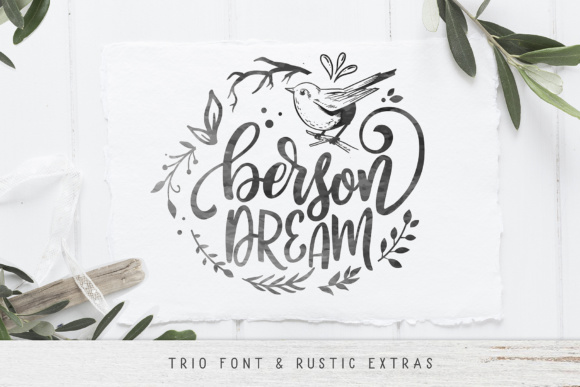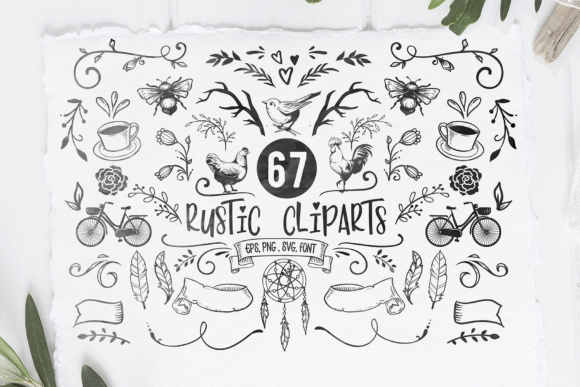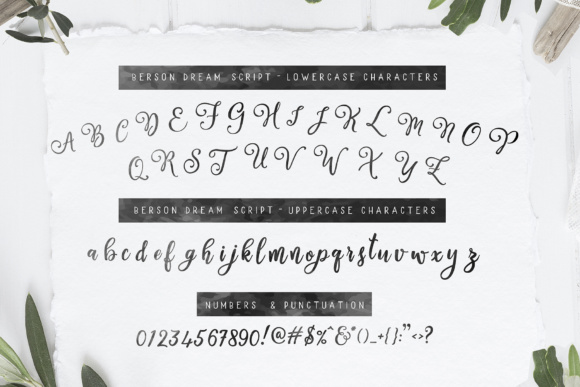
Berson Dream is a stunning font family filled with 3 complementary fonts and rustic illustrations, perfect for use in any imaginable project! This font has a romantic and doodle-like quality, and makes it easy to create print works of any kind.